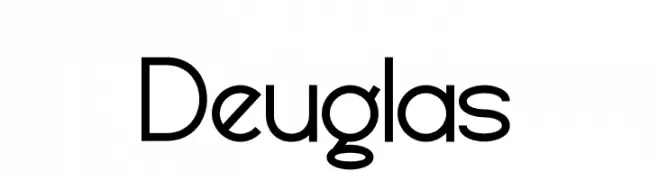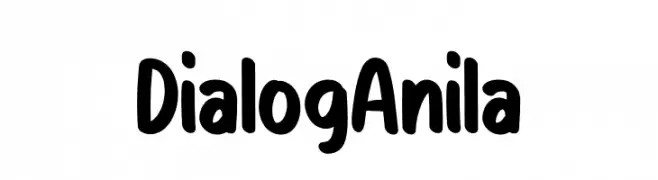
A modern, geometric sans-serif font with uniform strokes and a minimalist style.
A bold, condensed font with strong vertical emphasis and modern appeal.
A cursive, handwritten-style font with elegant, flowing strokes.
A bold, dynamic font with a slanted, energetic style.
A playful, handwritten script font with consistent stroke thickness.
A fluid, handwritten font with a casual and approachable style.
A bold, dripping font with a horror-themed, decorative style.
A playful, flowing script font with smooth, connected strokes.
A playful, bold, and rounded handwritten font.
A dynamic handwritten font with expressive flourishes and elegant curves.